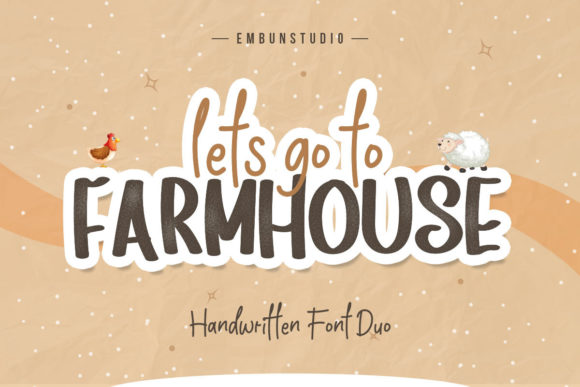
Embark on a typographic journey with Go to Farmhouse font - a delightful dance of handwritten charm and display grandeur. This enchanting duo unveils a world of creative possibilities, inviting you to weave tales of joy and whimsy into your designs.
Step into a world of design enchantment with the Go To Farmhouse Font. Crafted by EmbunStudio, this font family invites you to let your creativity bloom and flourish. A symphony of handwritten elegance and bold display, this font has been meticulously designed to ignite the spark of inspiration in every design project.
Whether you're a seasoned design virtuoso or just starting your creative adventure, Go To Farmhouse is your perfect companion. Witness the transformation as your designs blossom with a touch of playful sophistication. Let the handwritten strokes ignite a sense of warmth and authenticity, while the display elements add a dash of modern allure.
With Go To Farmhouse, you'll find endless opportunities to let your imagination soar. Create captivating content for Instagram, design logos that speak volumes, and craft brand identities that resonate with your audience. Unleash the magic of Cricut crafting, adding a touch of whimsy to accessories and decorations that bring smiles to faces.
Go To Farmhouse stands as a testament to the power of typography. It's a font that speaks to the heart, evoking emotions that linger long after the words are read. Its playful spirit and happy spark will infuse your designs with a sense of joy that's impossible to resist.